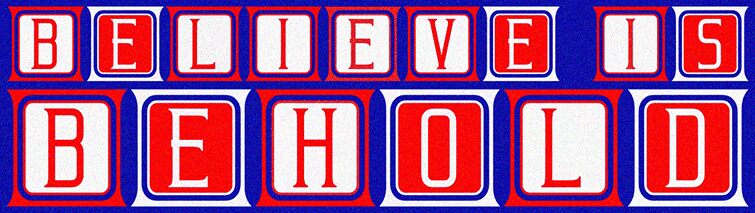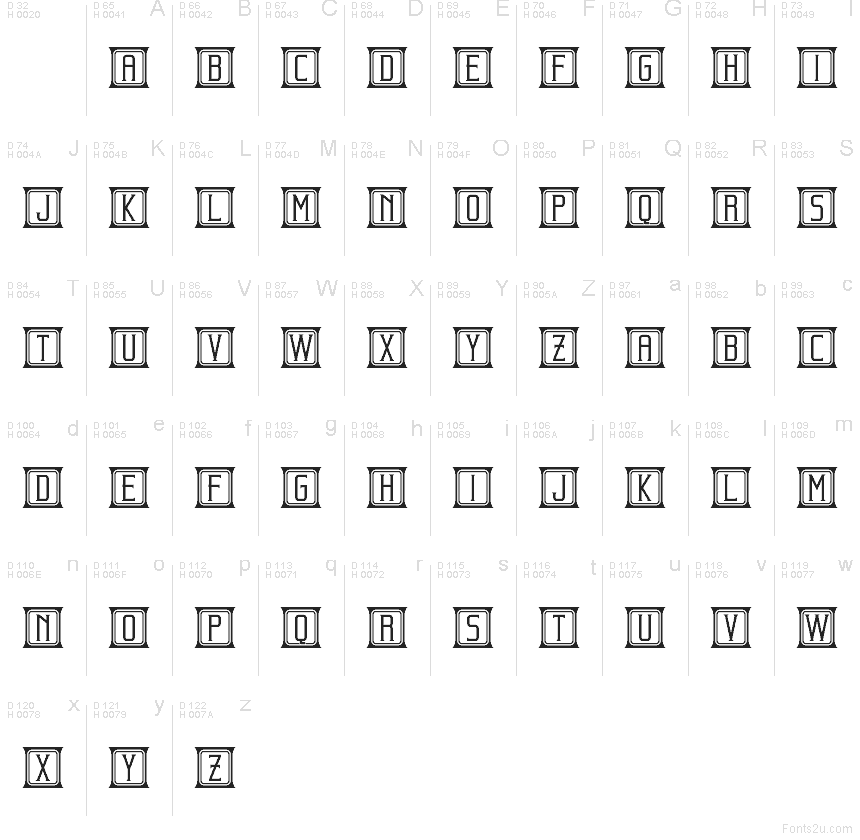
Beholder Capitals Elegant by Vladimir Nikolic is a free Art Deco caps display font with the letters set inside rounded rectangular plaques, giving it the feel of an old theater sign or a carefully lettered door plate. The repeated double-line framing and slim, upright forms keep the look orderly and ornamental at the same time, while the pointed dividers between letters add a little marquee rhythm.
This free font fits branding for cocktail bars, hotel stationery, poster titles, book covers, packaging, and title cards where a formal vintage accent helps carry the message. It also works well for monograms and short cover lines, because the boxed caps create their own built-in border and make even a brief word feel composed.